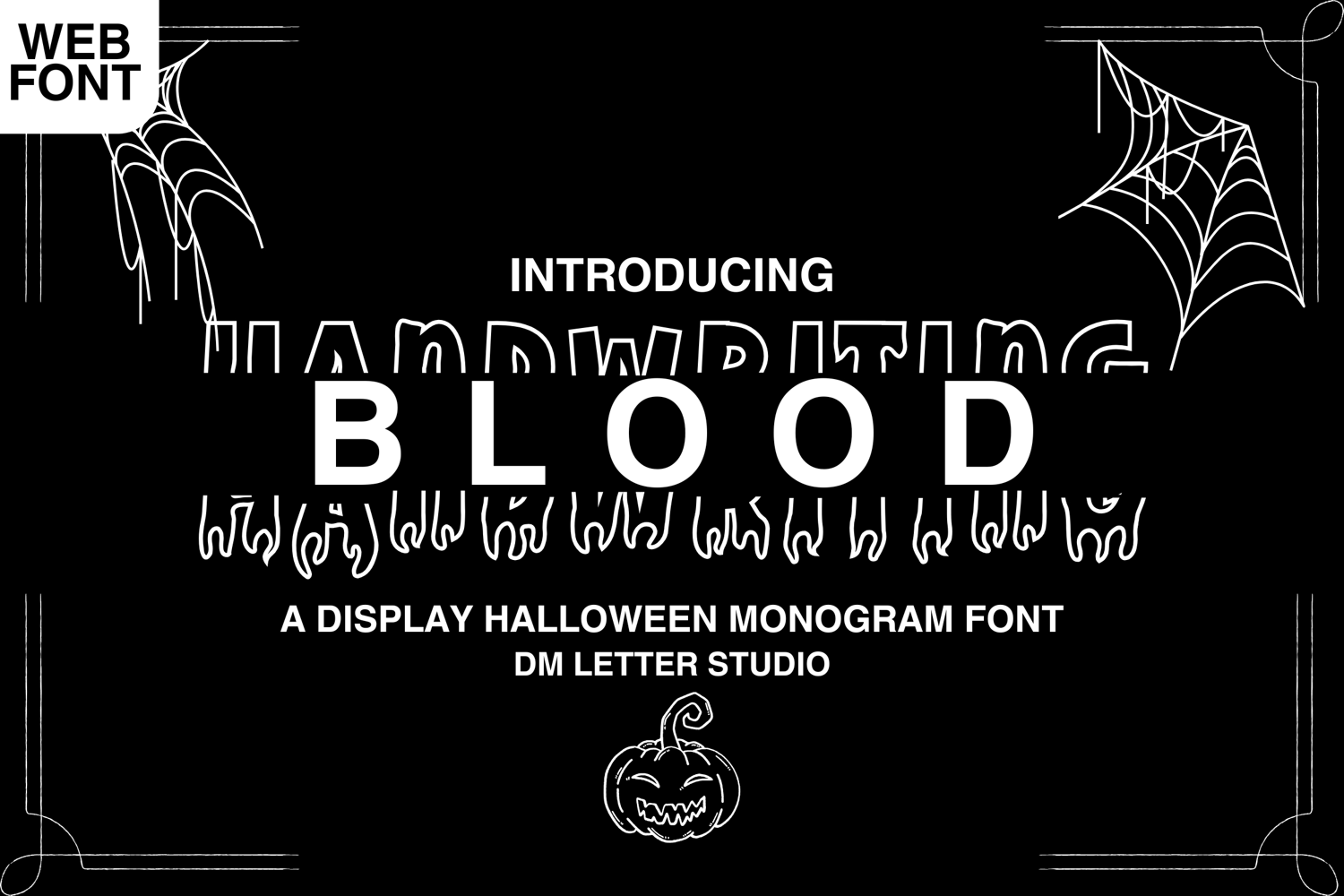
Handwriting Blood Monogram Font
Introducing Handwriting Blood, a chilling and dramatic stacked monogram font with a raw, handwritten aesthetic. Designed to evoke mystery, horror, or Halloween-themed vibes, this font drips with attitude—perfect for titles, posters, album art, and branding that need a dark edge. Its stacked monogram style allows for layered, compact compositions that are visually striking and ideal for initials, logos, and headline typography.
Whether you're creating horror movie titles, haunted house flyers, or spooky merch, Handwriting Blood offers the ideal combination of grunge, monogram structure, and handwritten flair.
• Grunge + Handwritten Style: Combines eerie, uneven strokes with authentic handwritten texture.
• Stacked Monogram Ready: Works beautifully in stacked/initial layouts for branding or logos.
• All Caps Font: Designed for bold typographic impact.
• Perfect for Horror & Halloween Themes: Adds a bloody and dramatic visual punch.
• Multilingual Support: Includes essential accented characters.
• Punctuation & Symbols: Full range for versatile design applications.